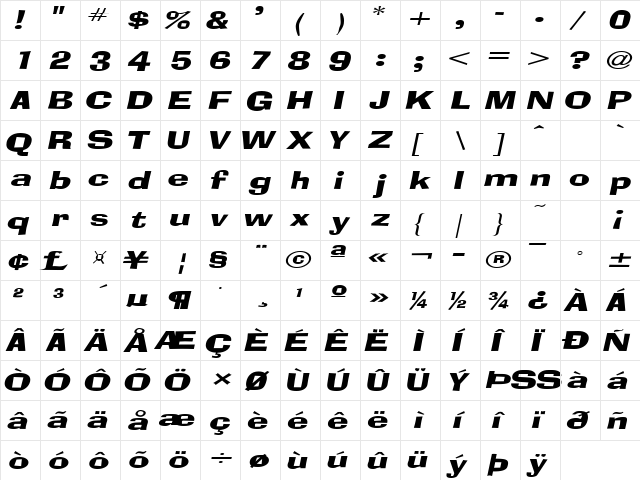
BloxExtended Italic
Design Context for BloxExtended Typeface
BloxExtended offers clean, dependable letterforms without strong stylistic allegiance, making it a practical choice for designers who need flexibility. The dynamic lean of this cut emphasises speed and emphasis in any layout.
Pro Tip: Use BloxExtended for emphasis, pull quotes, and subheadings where its slanted energy can add rhythm to the layout.